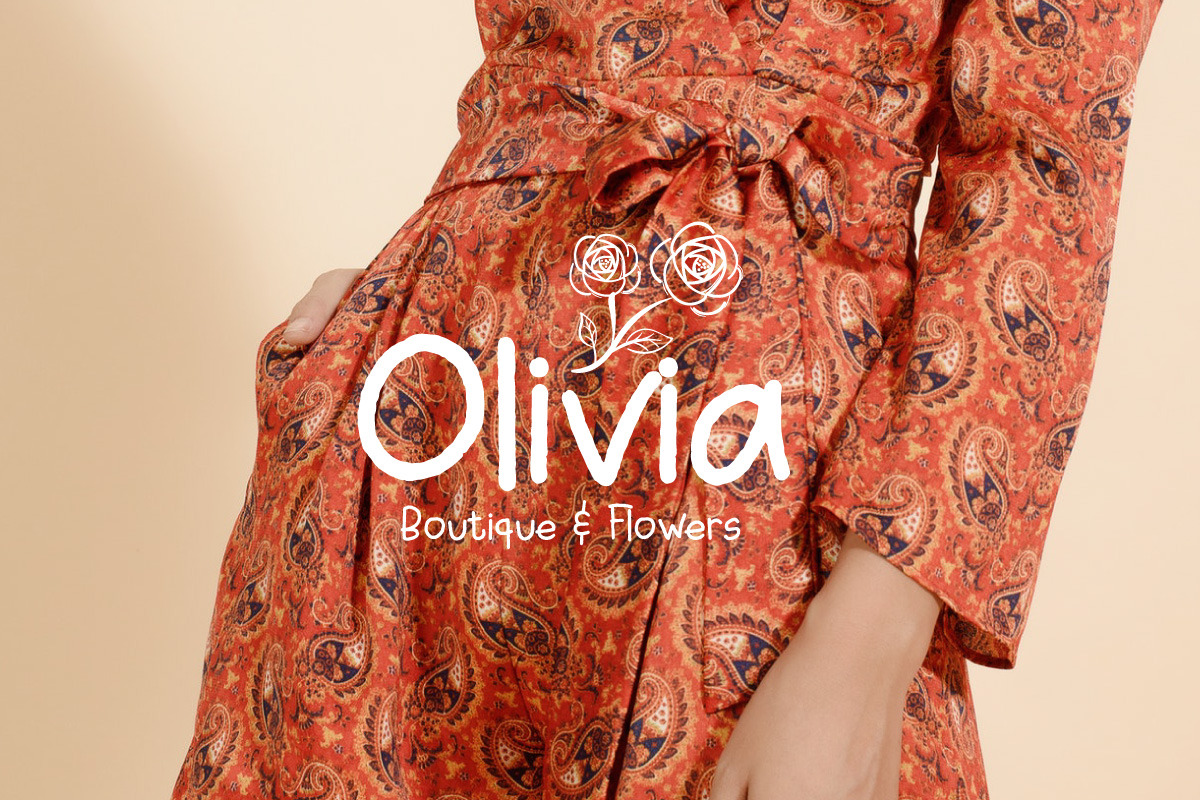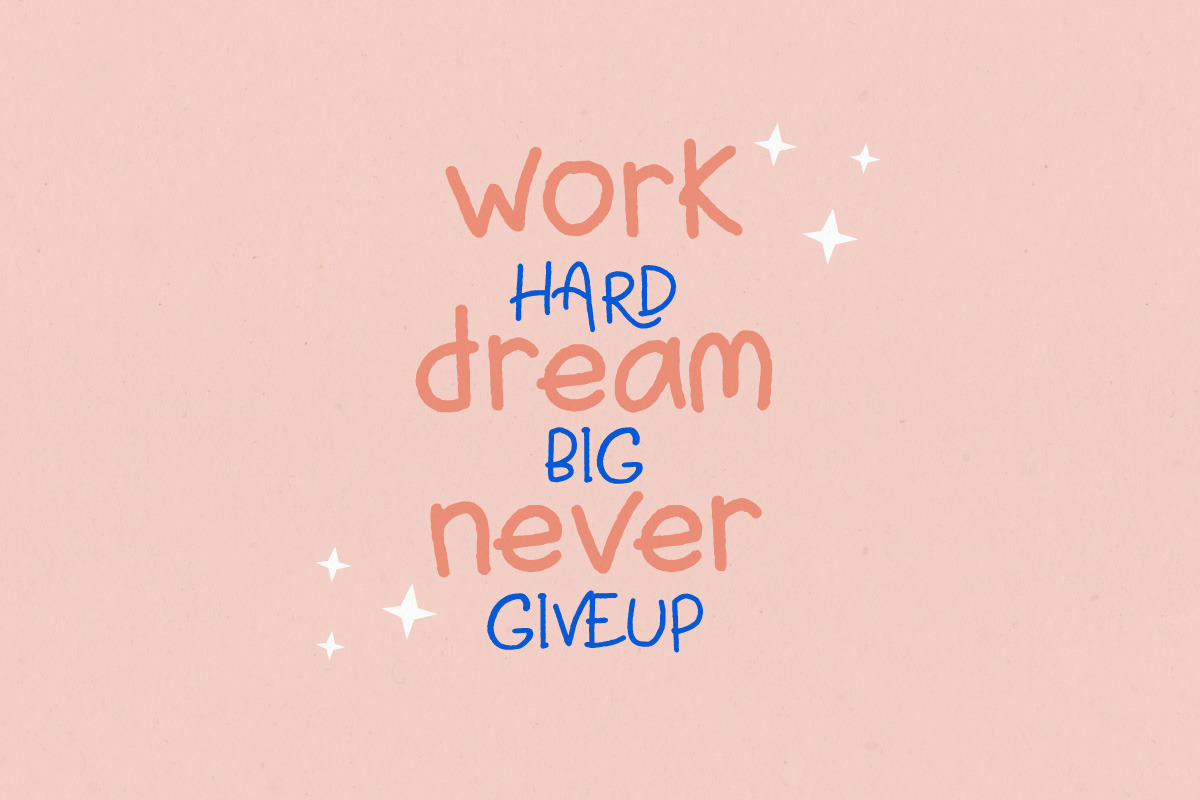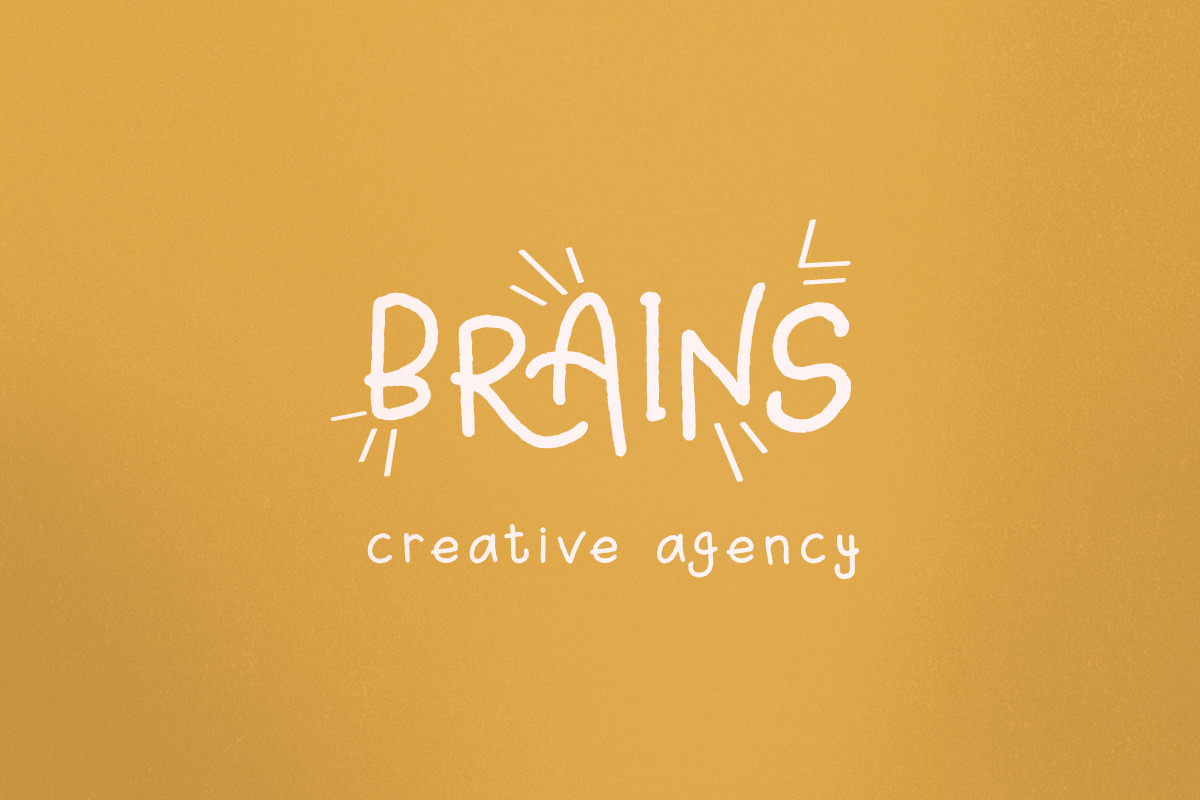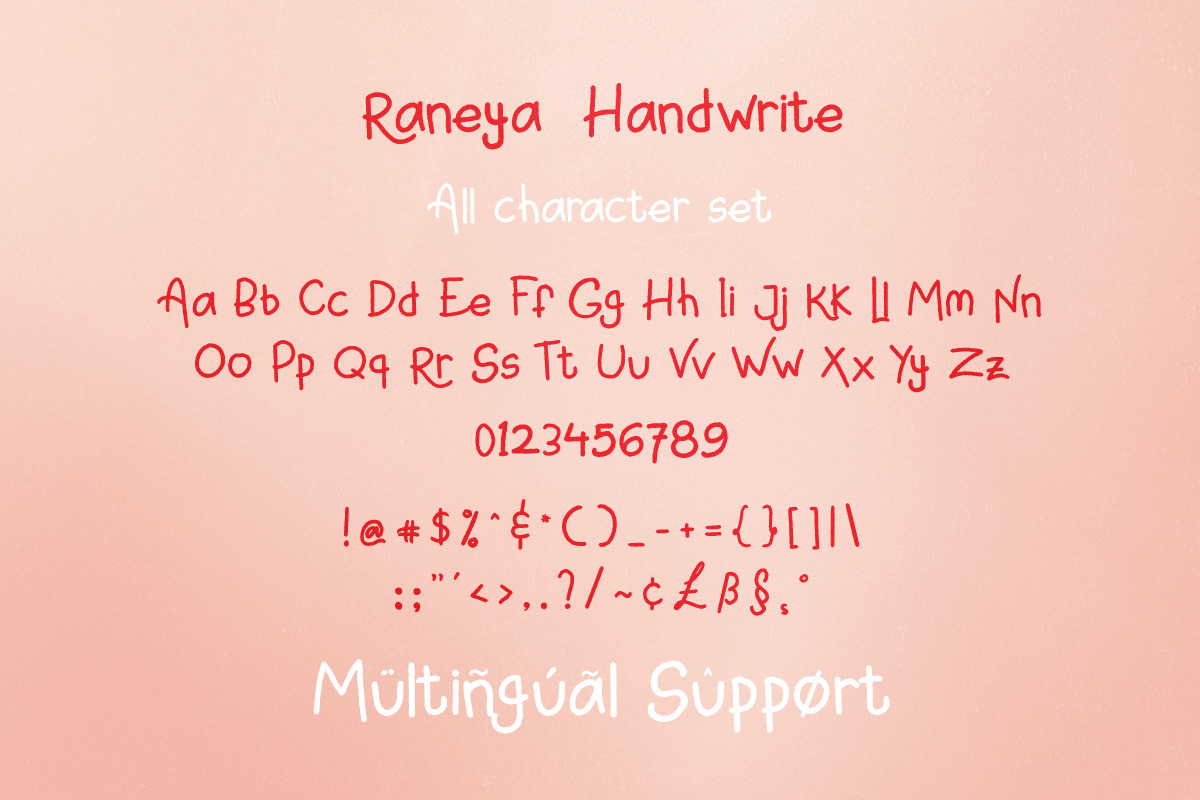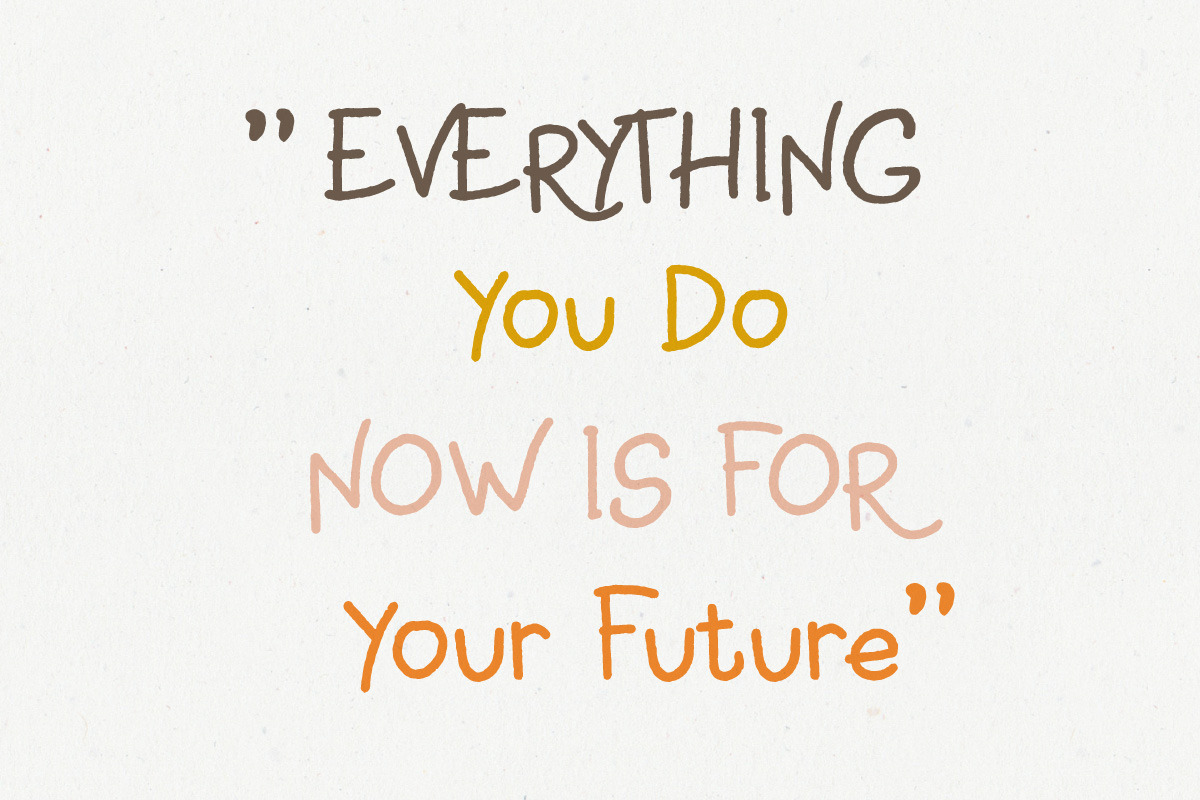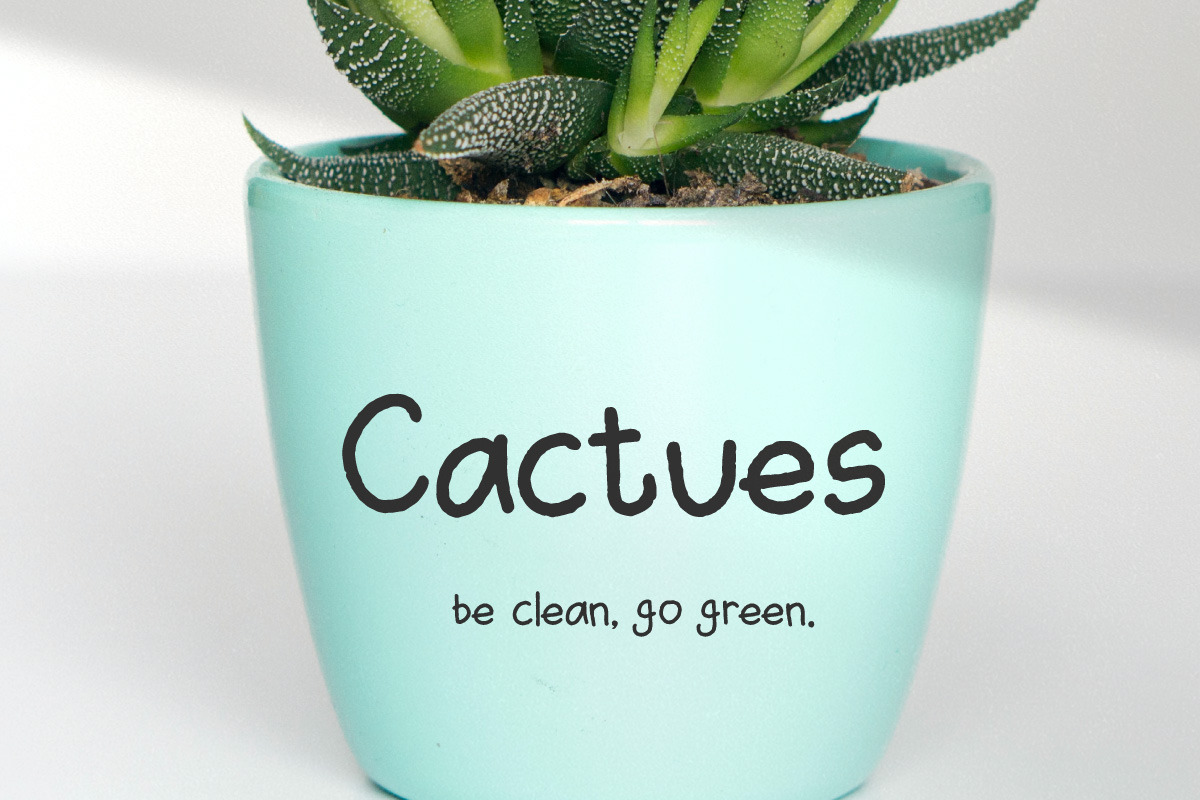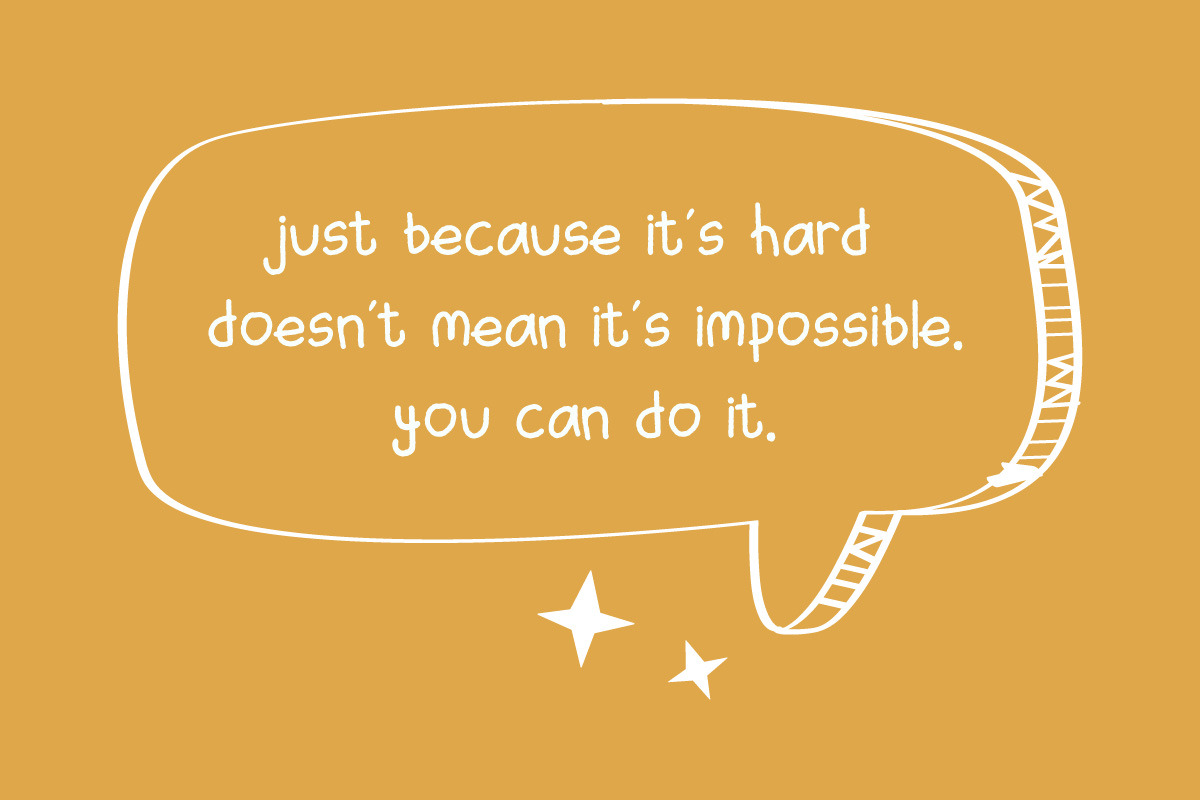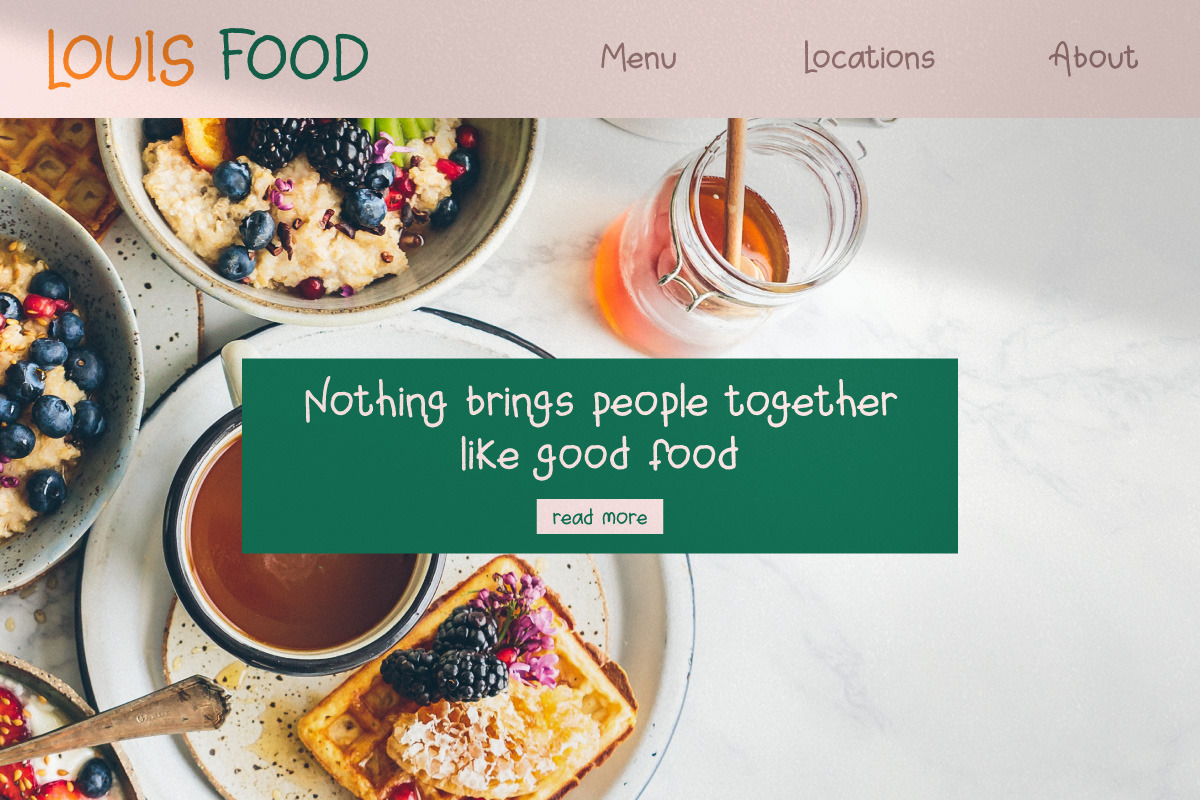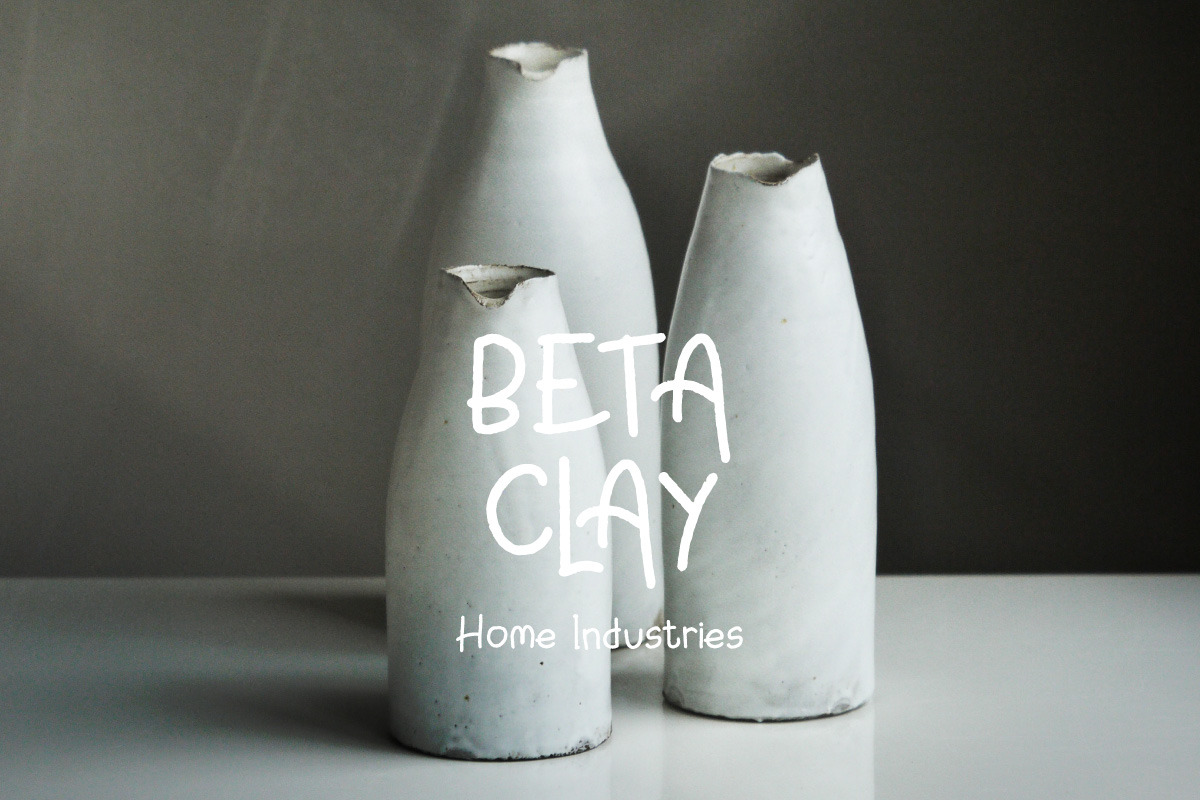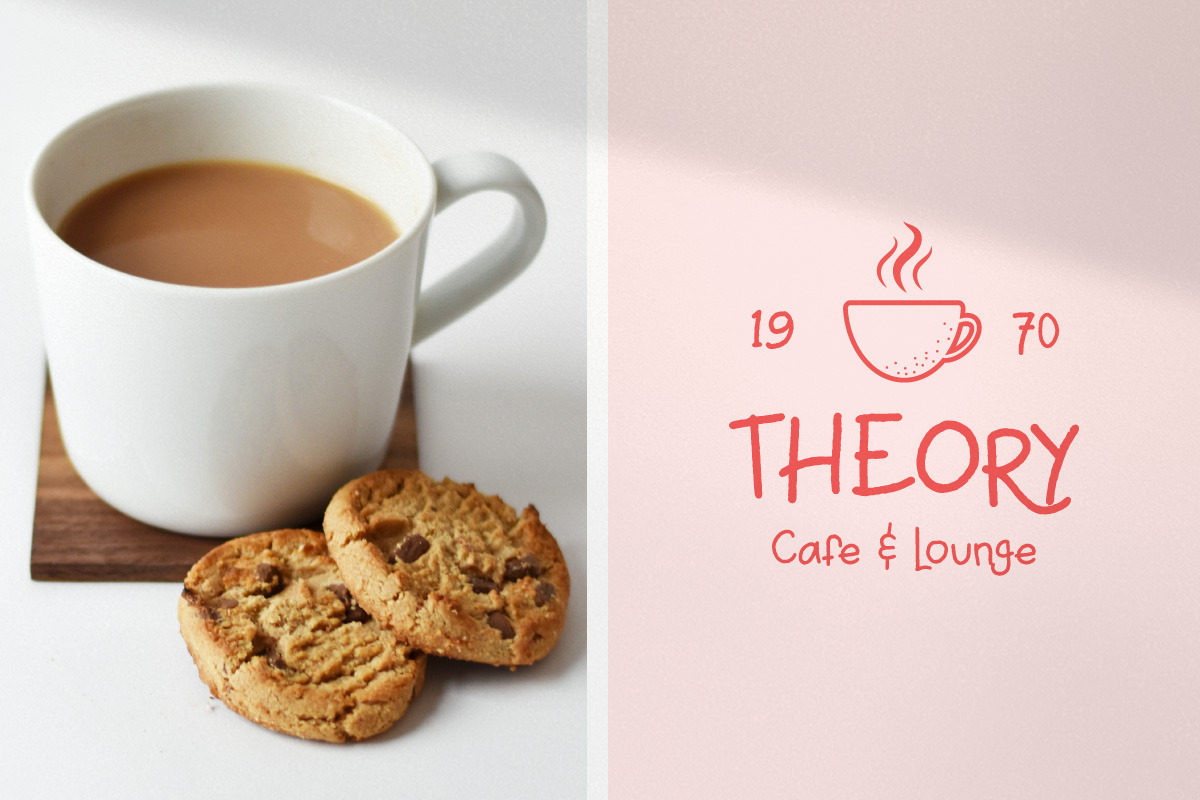
Renaya - Cute Girl Font
Renaya - Cute Girl Font with a Handwritten style, So beautiful on invitation like greeting cards, branding materials, business cards, quotes, posters, and more!
- Hundred of glyphs
- Alternates and Ligatures
- Punctional
- Fonts include Multilingual Support